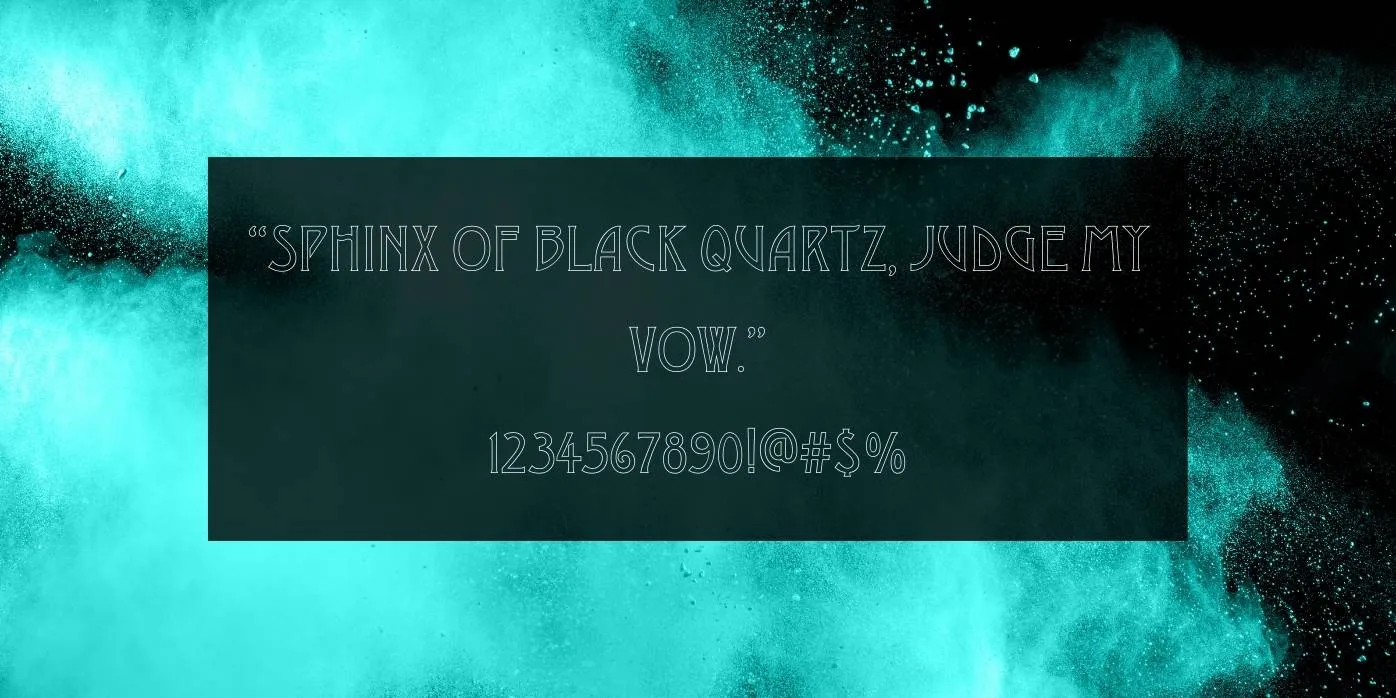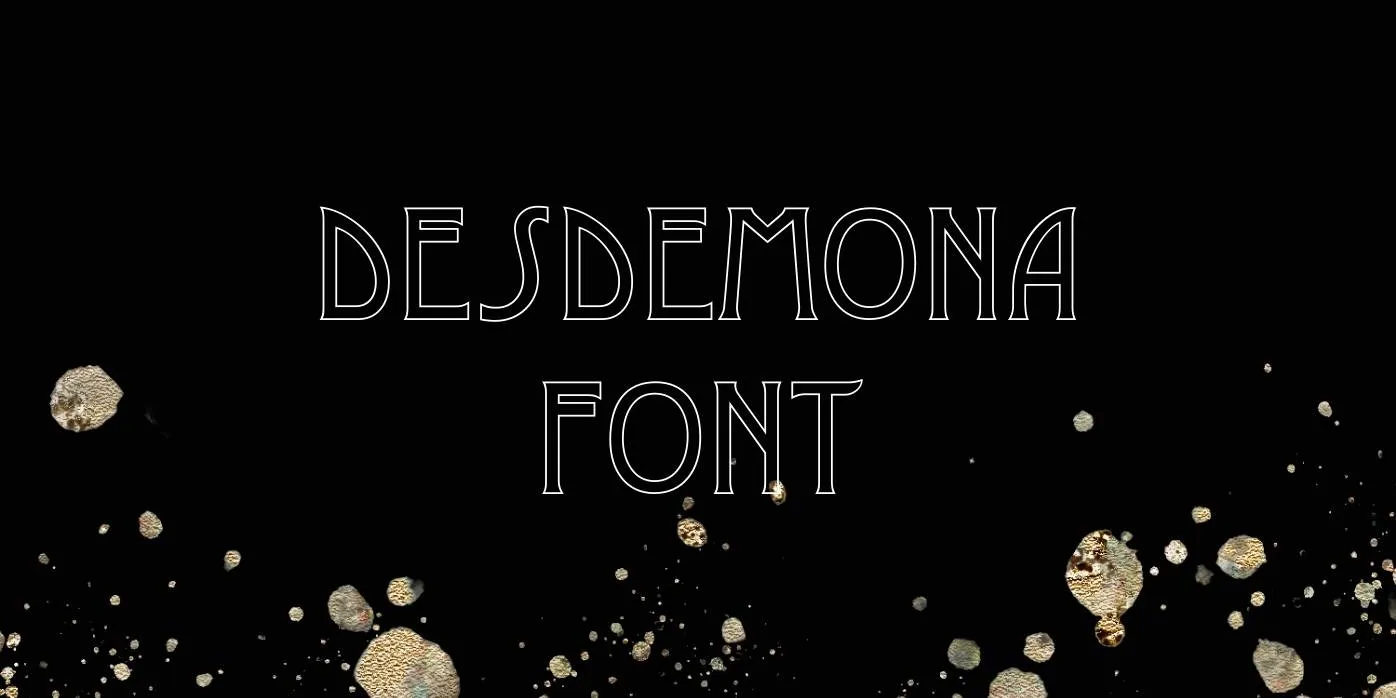
Desdemona Font
Introducing Desdemona Font, which was designed by David Berlow. It belongs to the fancy font family. This stylish font has come in five unique styles. These are Regular, Rough, Rude, and Soft.
You can use any of these styles according to your requirements. Desdemona Font was created to provide a fresh alternative to traditional fonts. The font is characterized by its strong vertical stress, high x-height, and condensed proportions. It’s a great choice for headlines and short paragraphs of text.